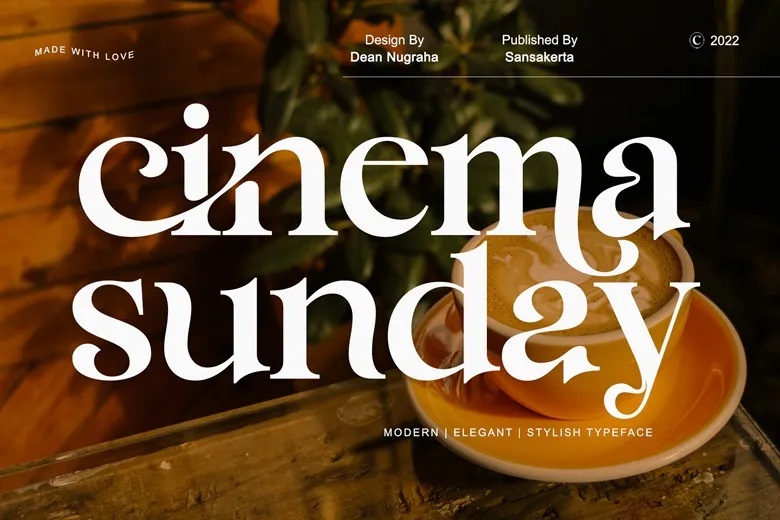
Cinema Sunday Font
Cinema Sunday is a minimalist elegant modern serif typeface with beautiful ligatures, extra special alternative glyphs, ornament, multilingual support, and a film theme. It is a very flexible font which can easily be used both for large format and small ones.
Cinema Sunday Serif Font